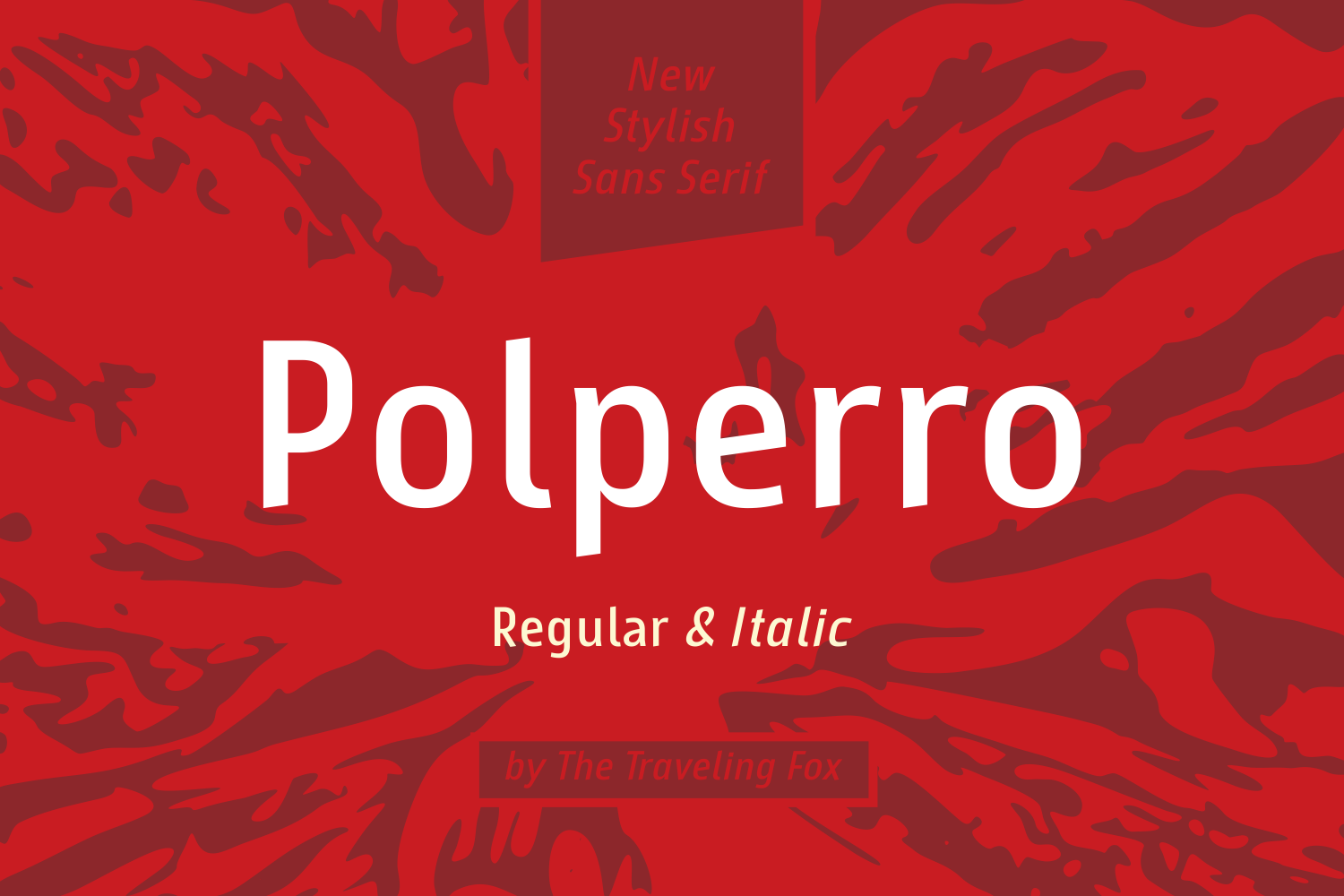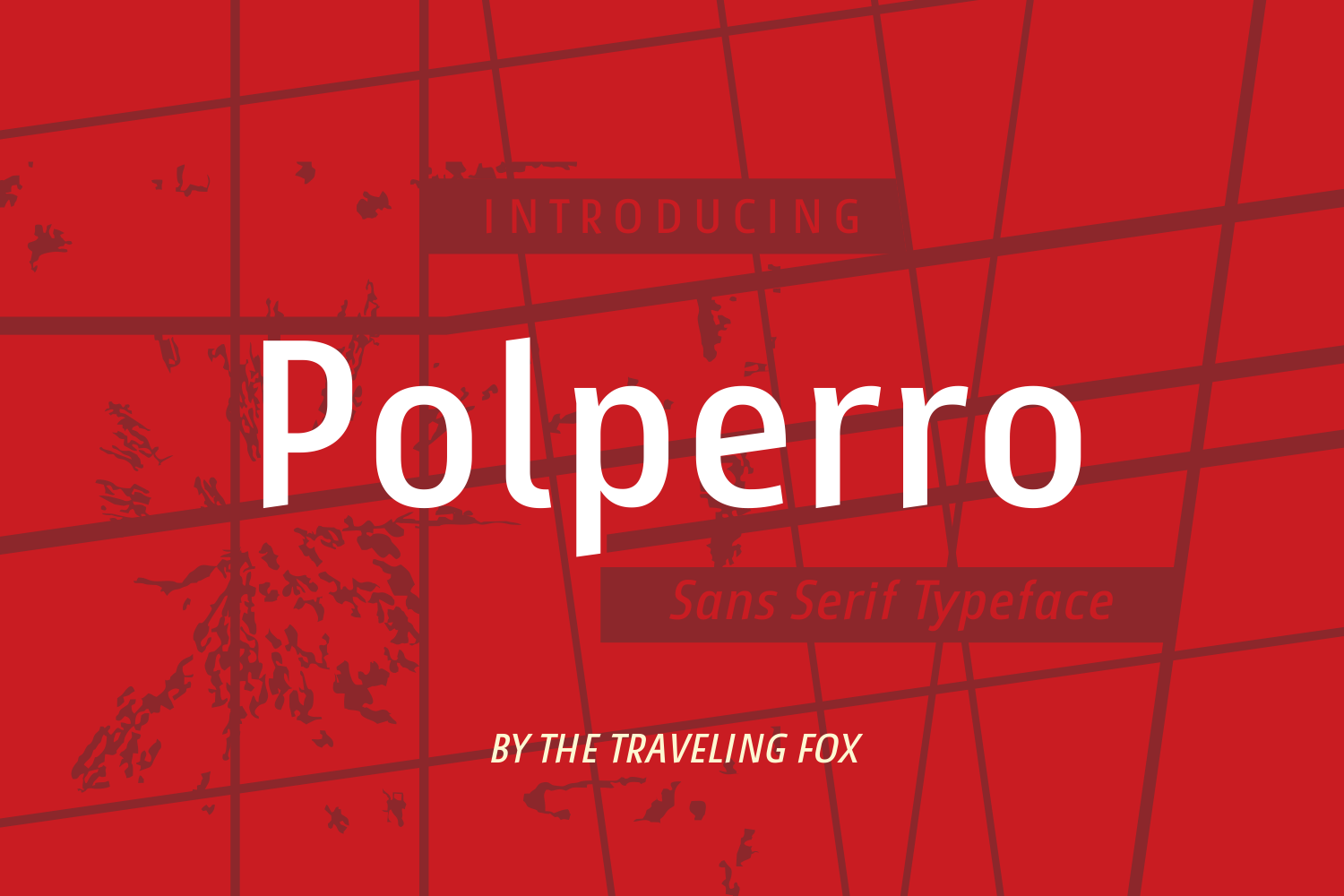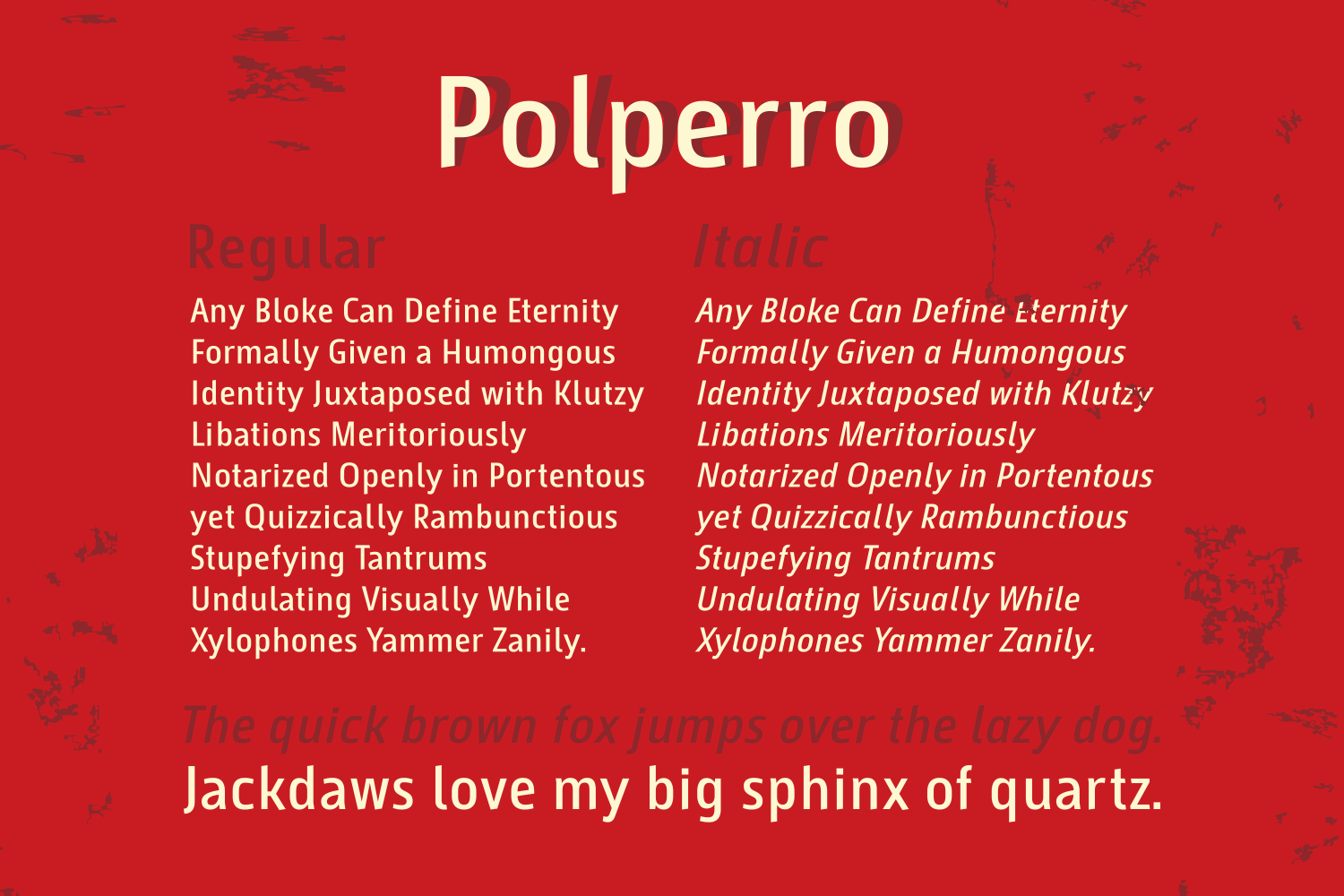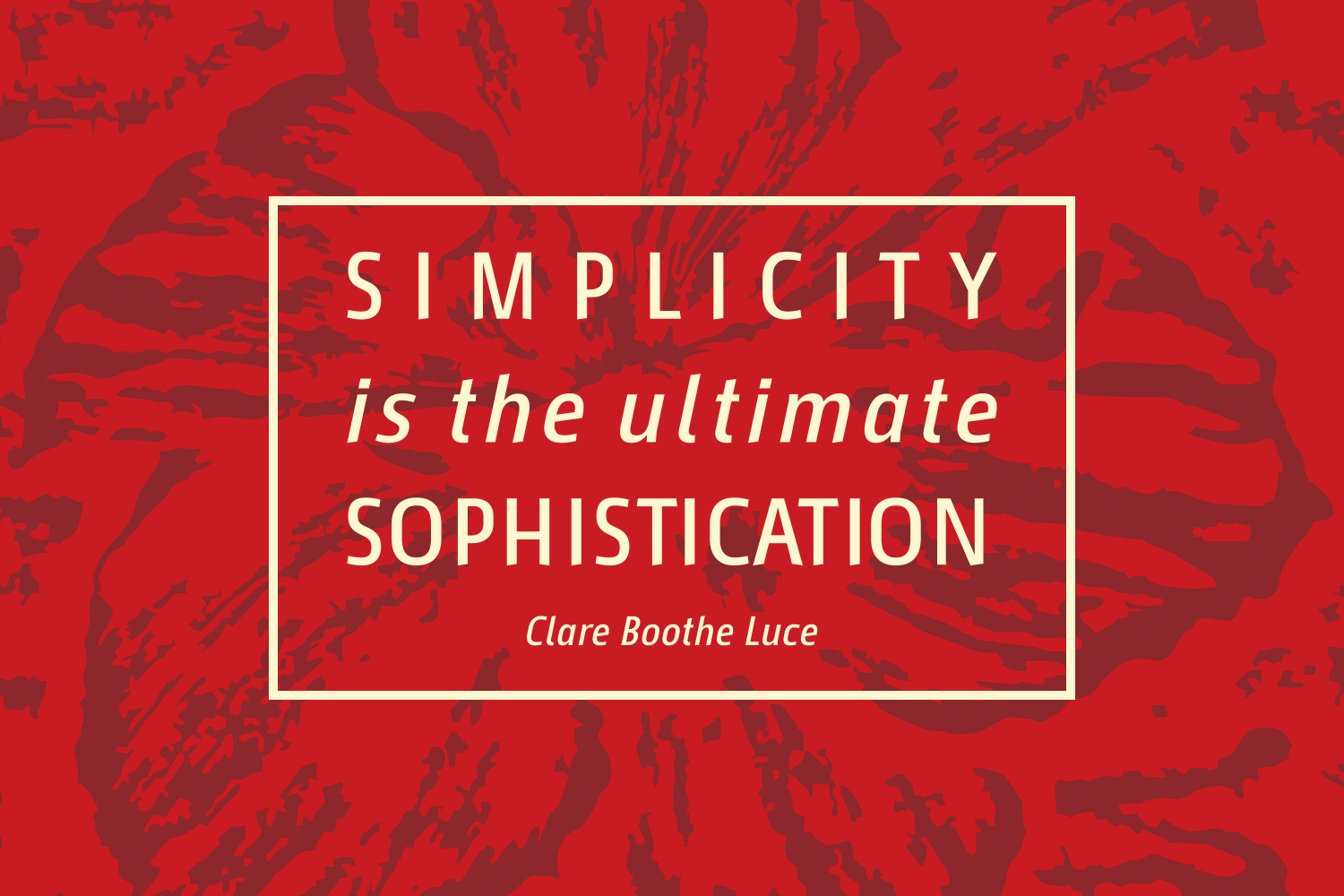
Polperro Font
Polperro is an elegant sans serif.
When using Polperro in titles and headlines, you will be sure to leave an impact. If you use Polperro as body text, you’ll find it’s a very legible, pleasant-on-the-eyes type. Its clean lines and subtle sophistication make it a versatile choice for a wide range of projects—from editorial layouts and branding to websites and presentations. Polperro balances modern minimalism with timeless style, making it a reliable and refined addition to any designer’s toolkit.